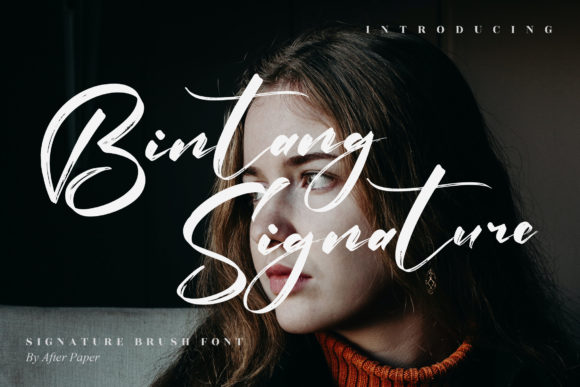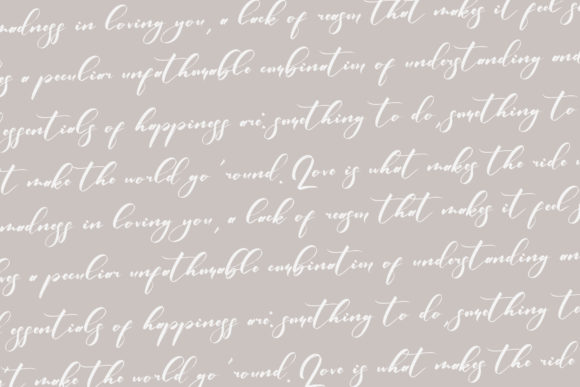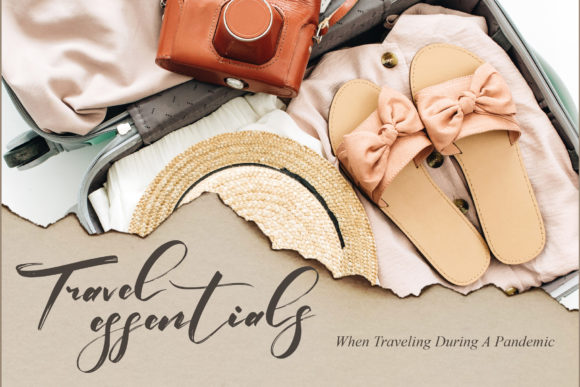
About Bintang Signature Font
Bintang Signature is a beautiful and stylish handwritten font with a unique feel and a stunning impact. It will add a luxury spark to any design project that you wish to create! This font is PUA encoded which means you can access all of the amazing glyphs and ligatures with ease!